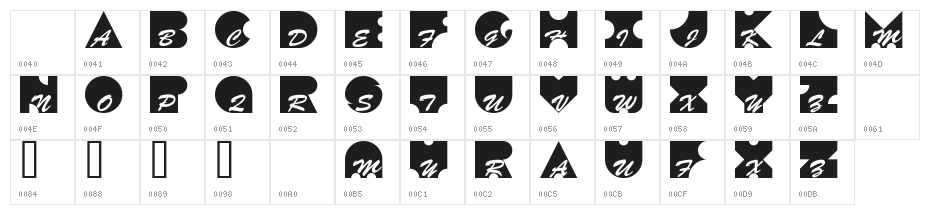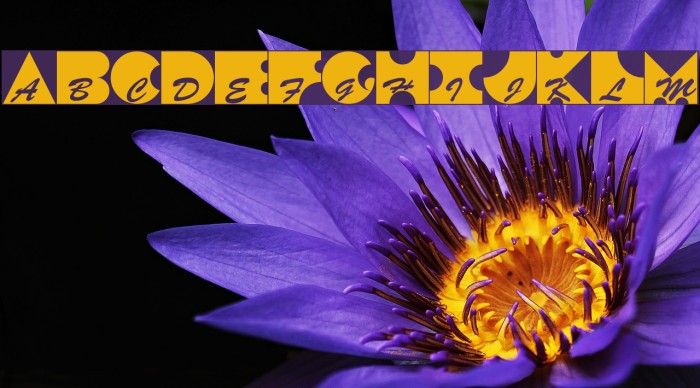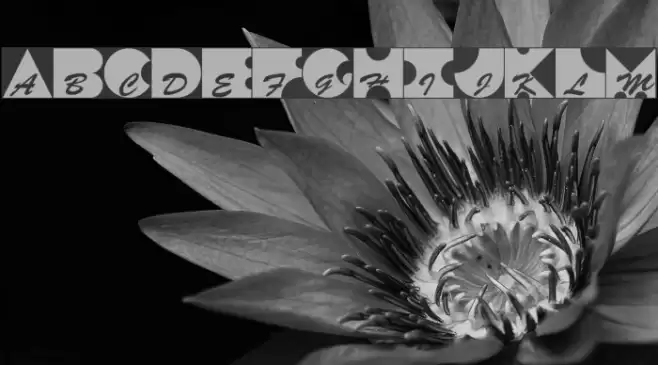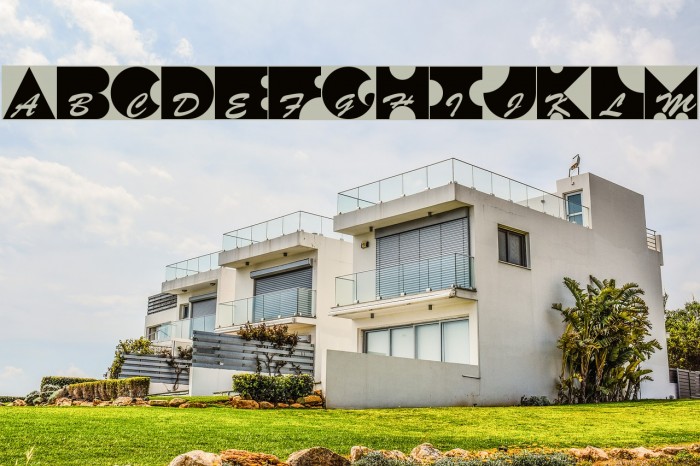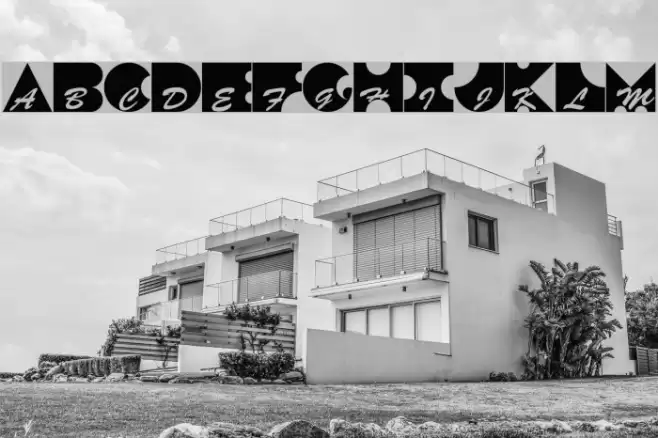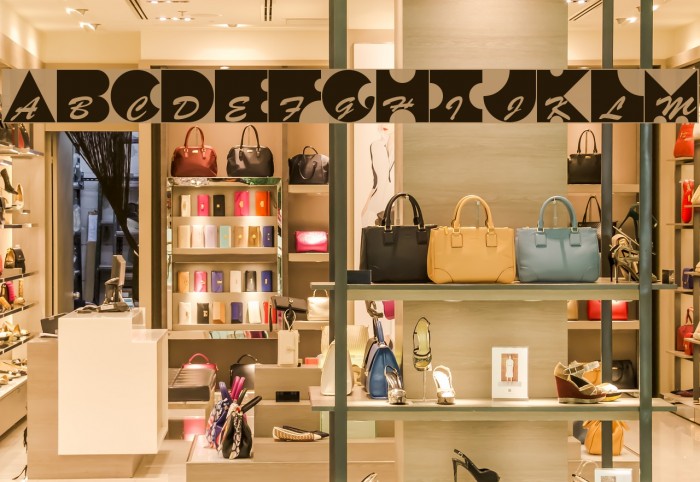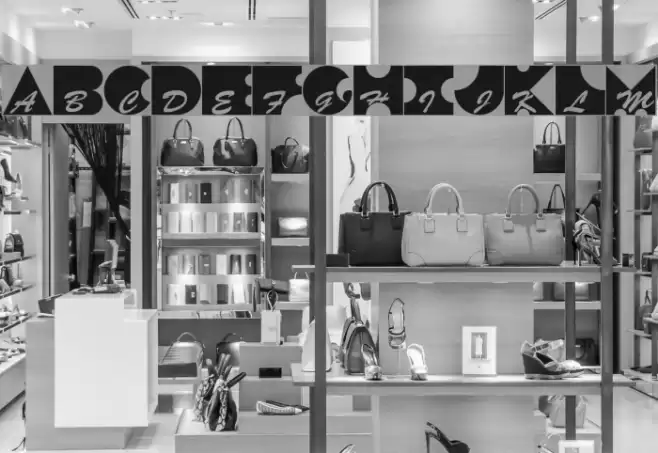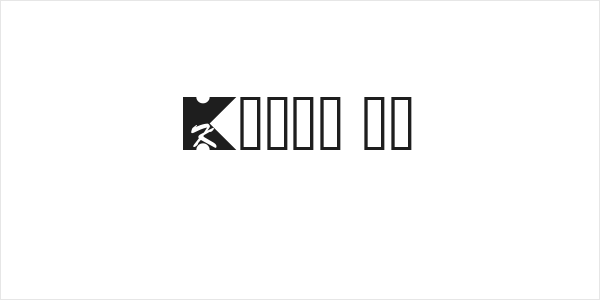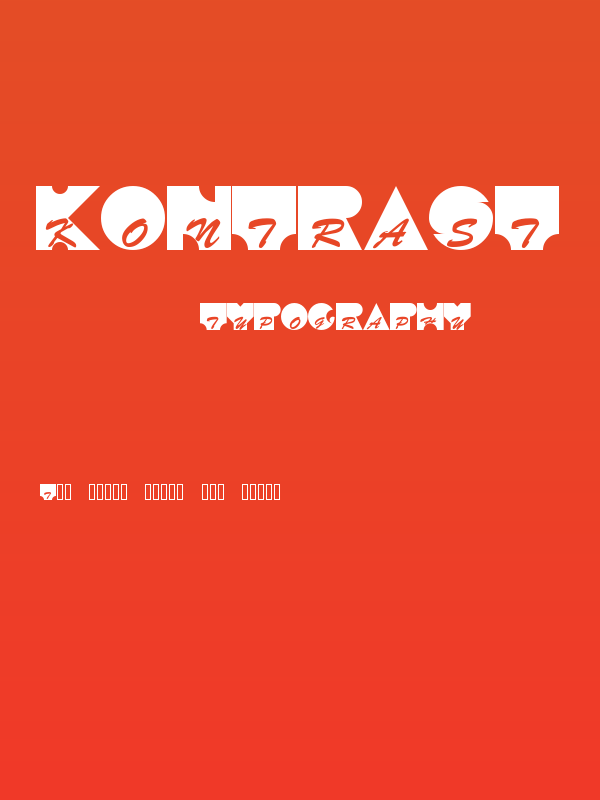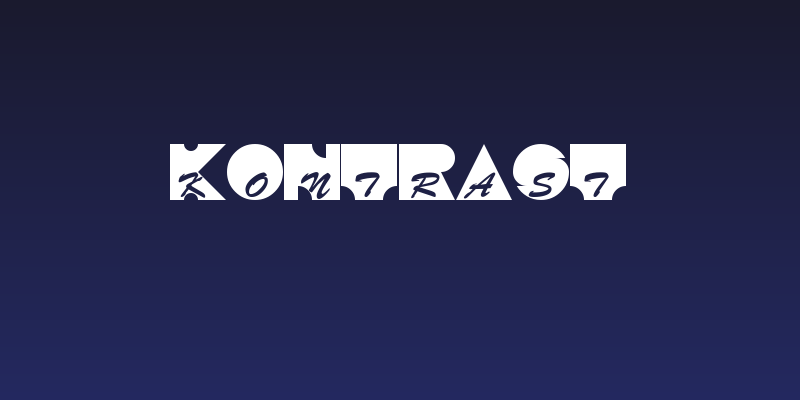
Kontrast Font
Kontrast Description
This font features a bold and striking design with high contrast between thick and thin strokes. The uppercase letters are characterized by geometric shapes with sharp angles and curves, creating a dynamic and modern appearance. The lowercase letters maintain a similar style, offering a cohesive look across the alphabet. The numbers and special characters follow the same design principles, ensuring consistency throughout. This font's unique style makes it stand out, with its bold presence and artistic flair.
Proposed ProjectsIdeal for branding, poster design, and any project that requires a strong visual impact.